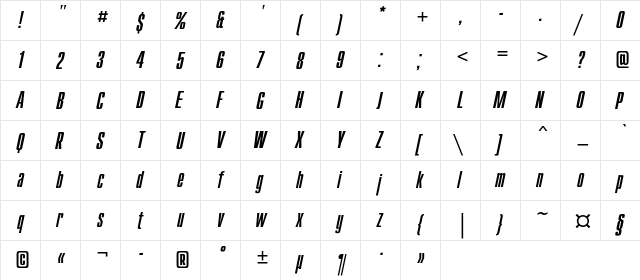
CompactC Italic Font Preview
Design Context for CompactC Typeface
CompactC is a composed and adaptable typeface that performs quietly and consistently across a wide range of design contexts. The dynamic lean of this cut emphasises speed and emphasis in any layout. The condensed width makes it efficient for tight spaces without sacrificing legibility.
Pro Tip: Try CompactC for annotation and caption copy alongside an upright companion — the contrast in angle creates a dynamic but ordered typographic system.